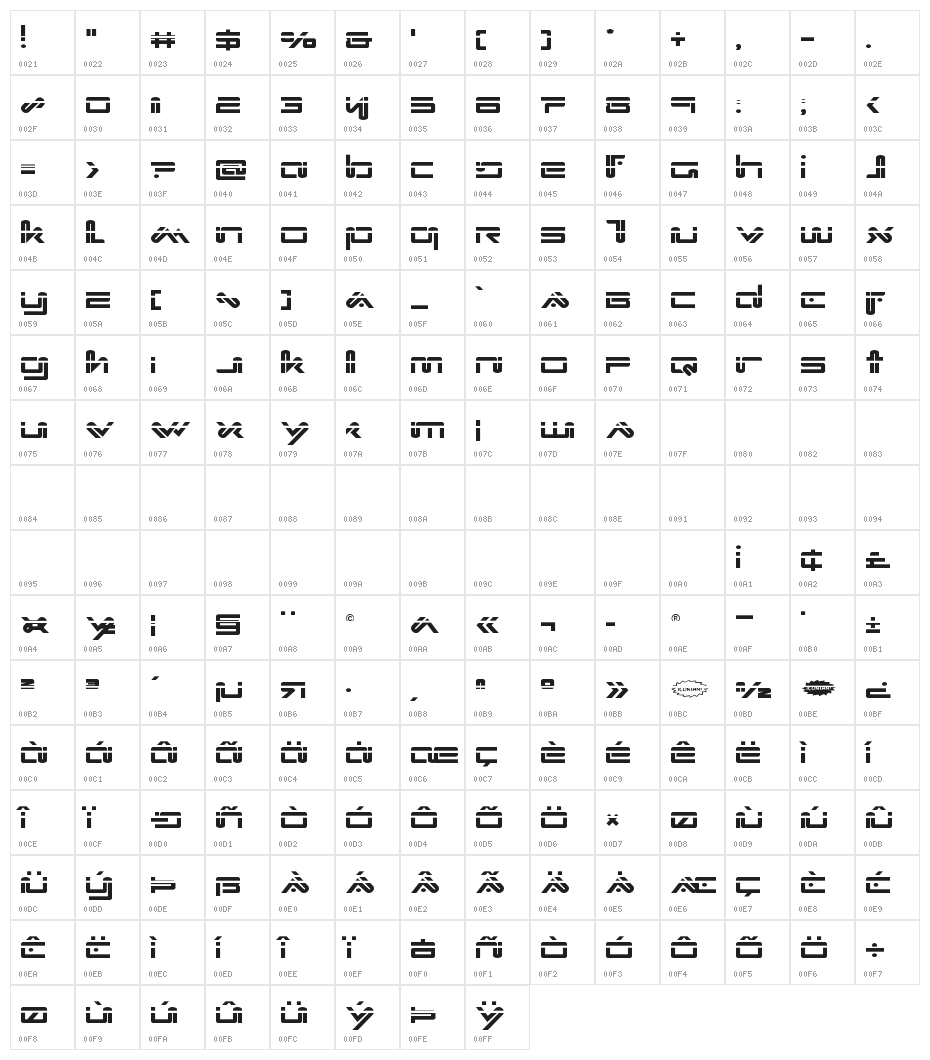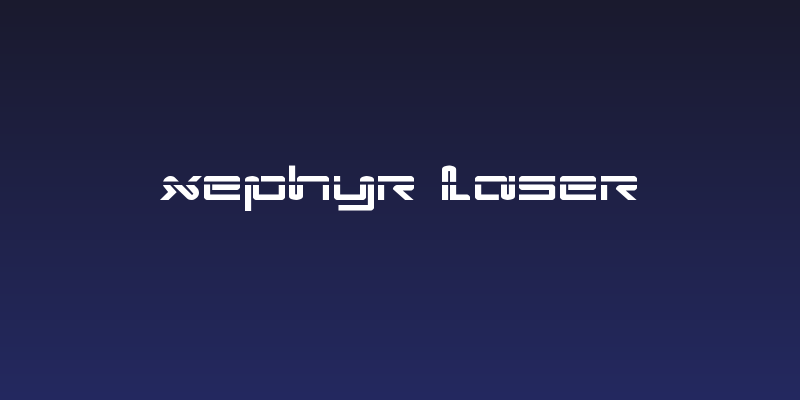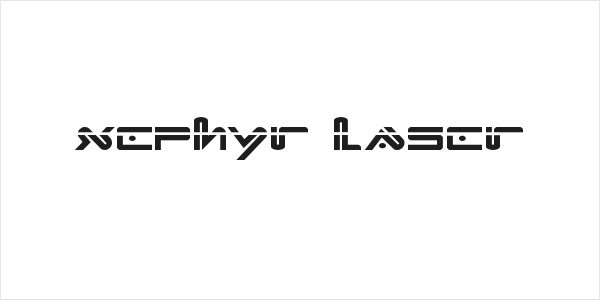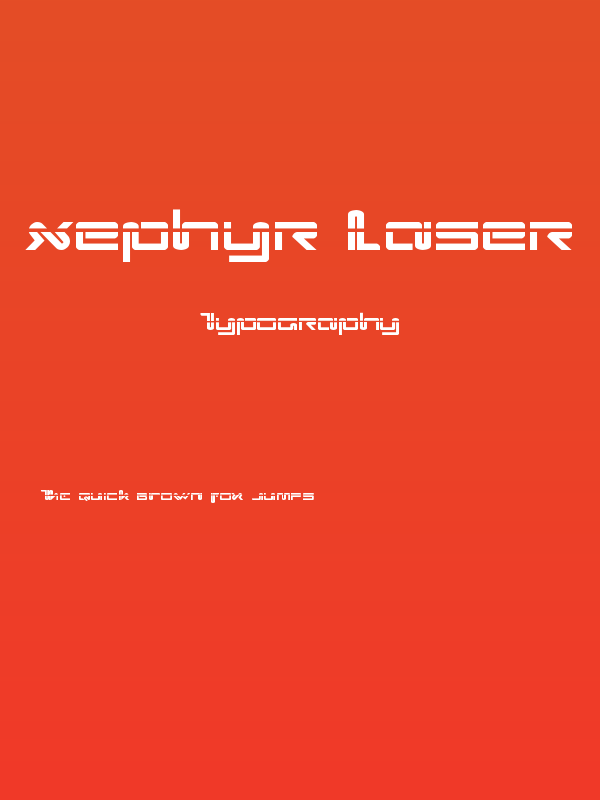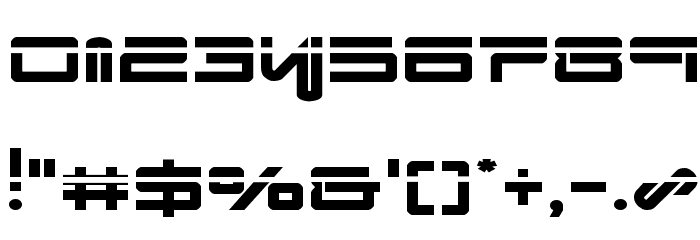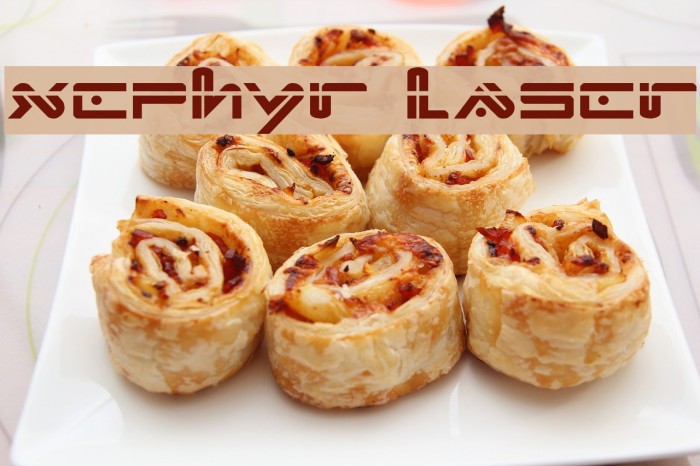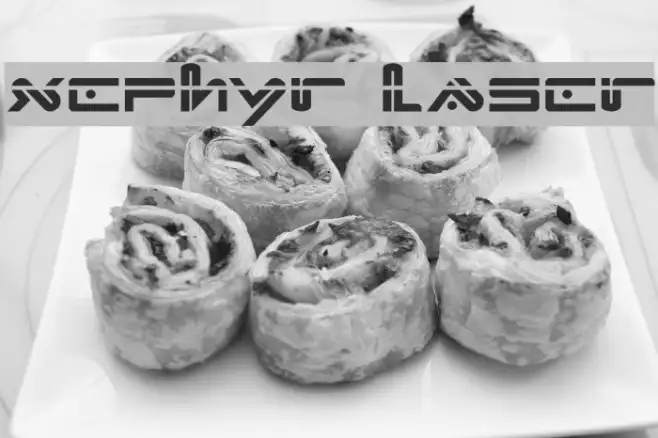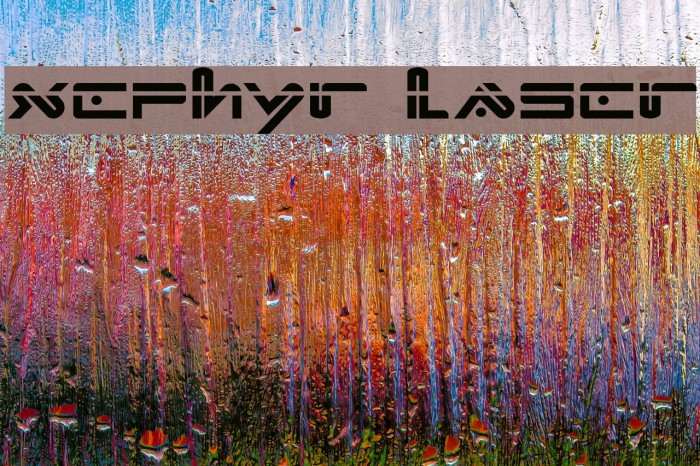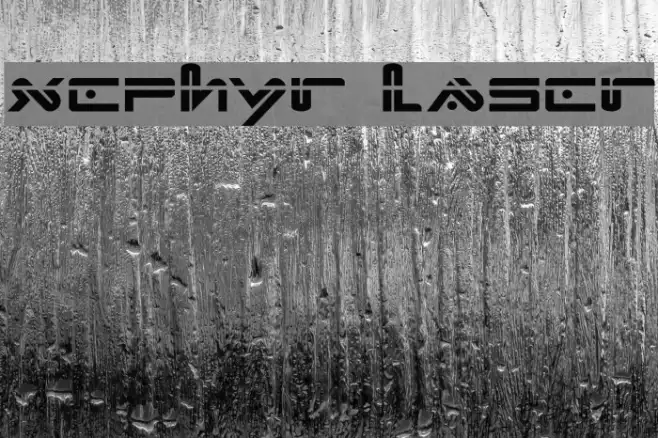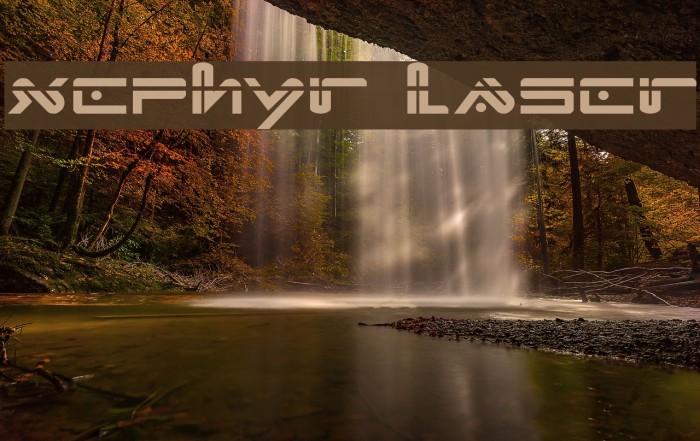
Xephyr Laser Font
Xephyr Laser Description
This font features a futuristic and geometric design, characterized by its bold and angular letterforms. The characters are constructed with a series of straight lines and sharp angles, giving it a distinctly modern and digital appearance. The uppercase and lowercase letters maintain a consistent style, with unique cuts and shapes that create a sense of movement and dynamism. The numerals and special characters follow the same design principles, ensuring a cohesive look across all glyphs. This font's distinct style makes it suitable for projects that require a tech-savvy or avant-garde aesthetic.
| Proposed Projects | Ideal for sci-fi themed designs, tech branding, video game interfaces, and modern posters. |